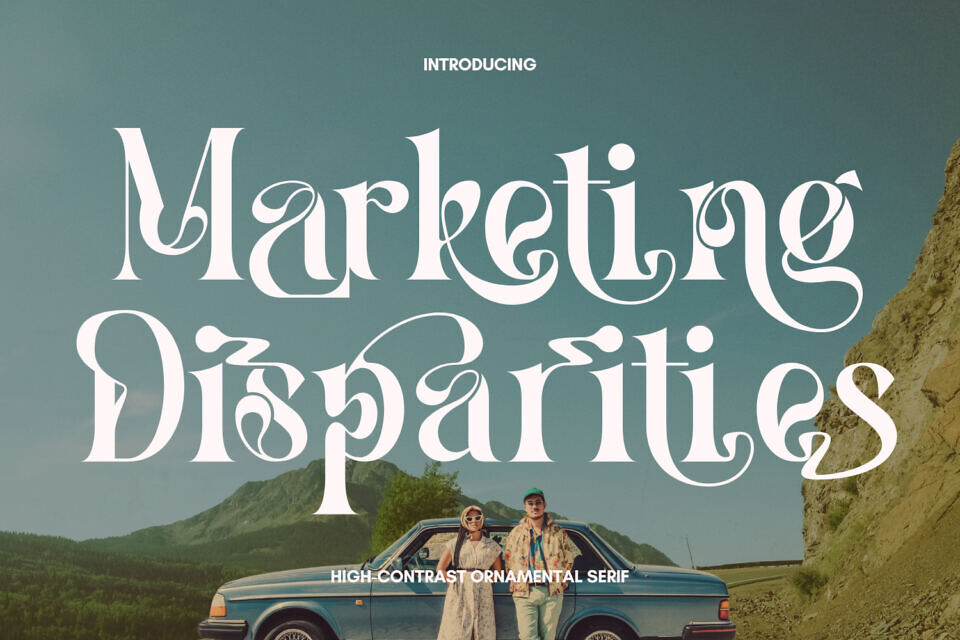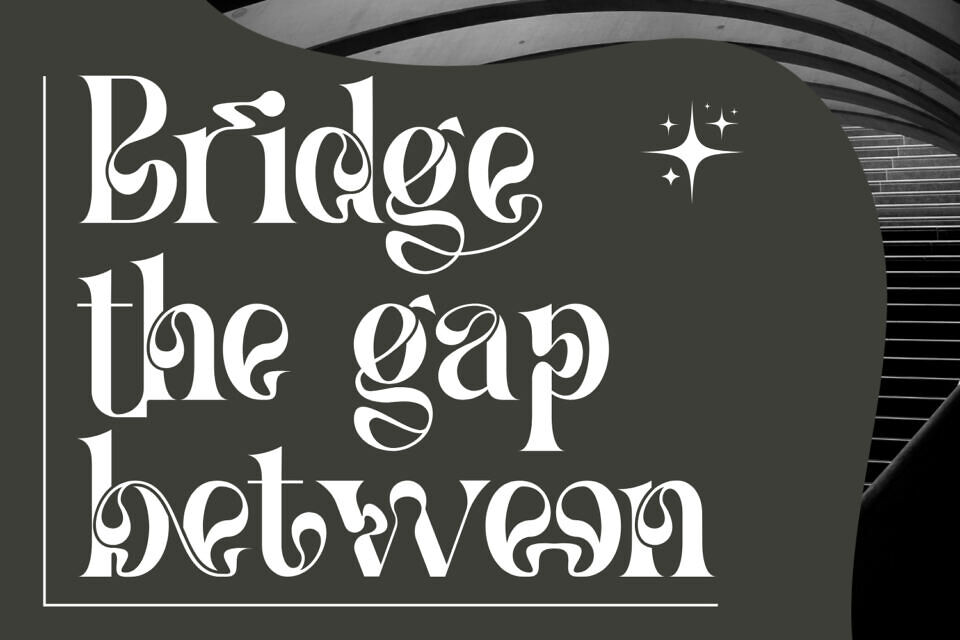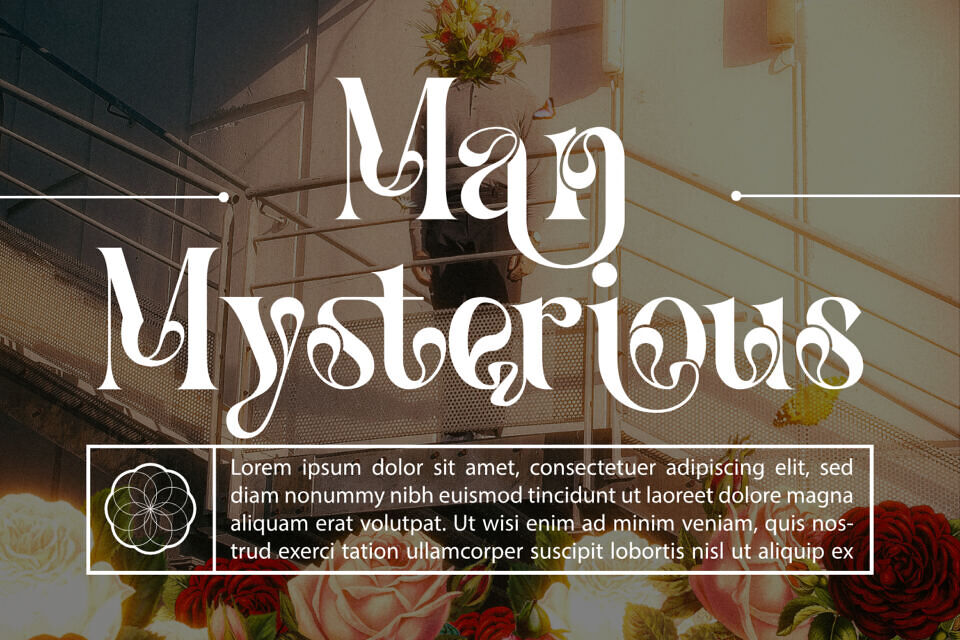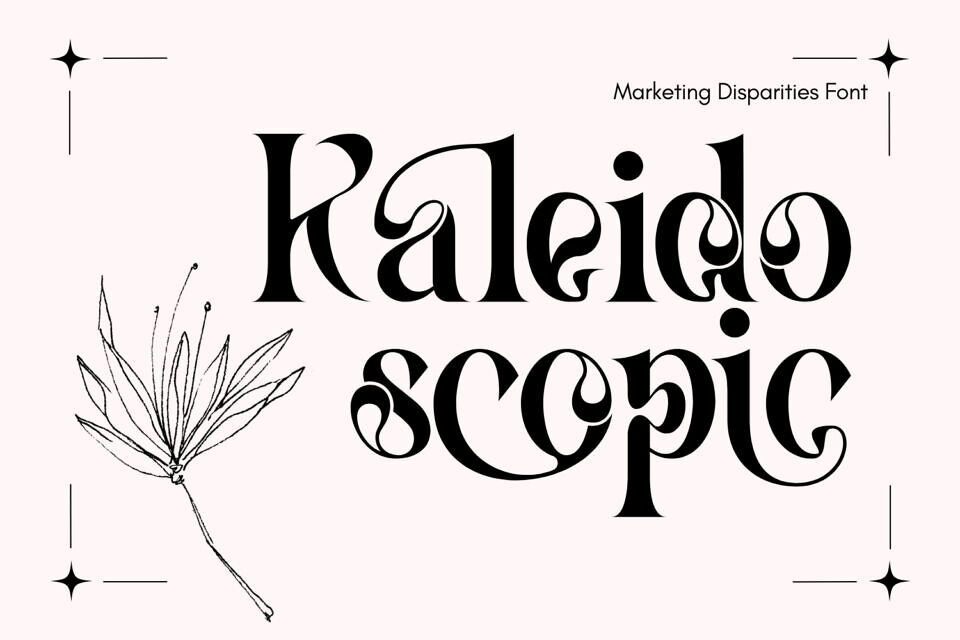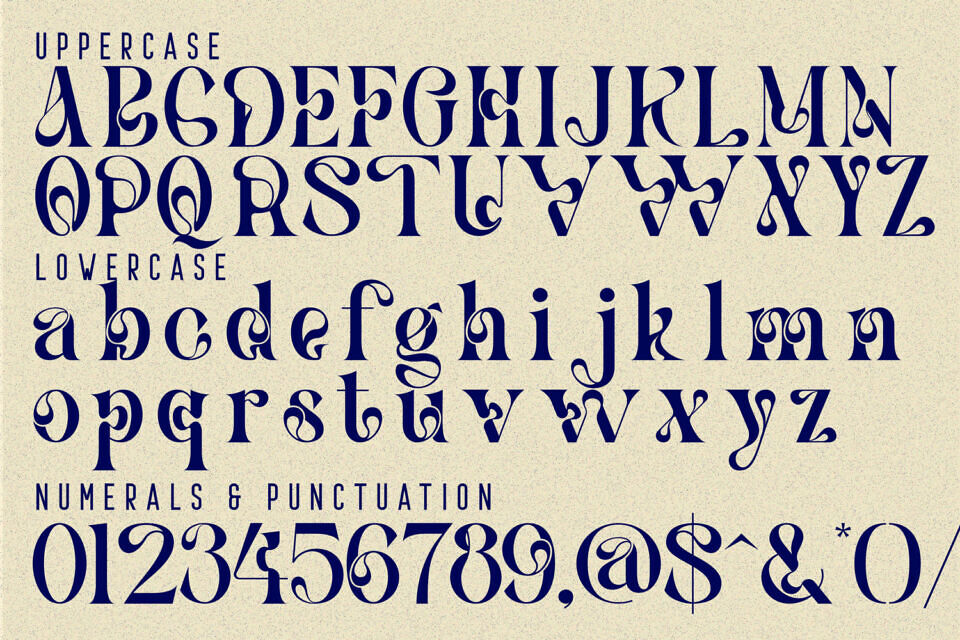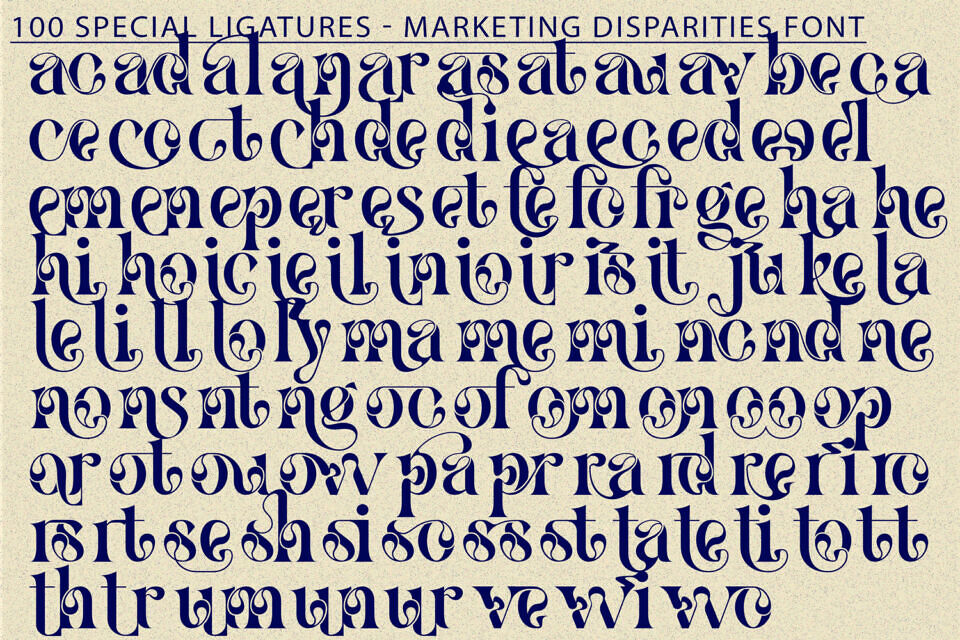
Marketing Disparities is an elegant ornamental serif display font crafted with dramatic curves, graceful swashes, and poetic letterforms. Each character blends classic serif structure with decorative calligraphic flourishes, creating a sophisticated visual rhythm perfect for expressive typography.
Its flowing strokes, extended loops, and refined contrast make it ideal for luxurious branding, artistic posters, book covers, fashion campaigns, and high-end packaging. Designed to stand out with its elegant detailing and romantic movement, Marketing Disparities transforms every word into a captivating visual composition.